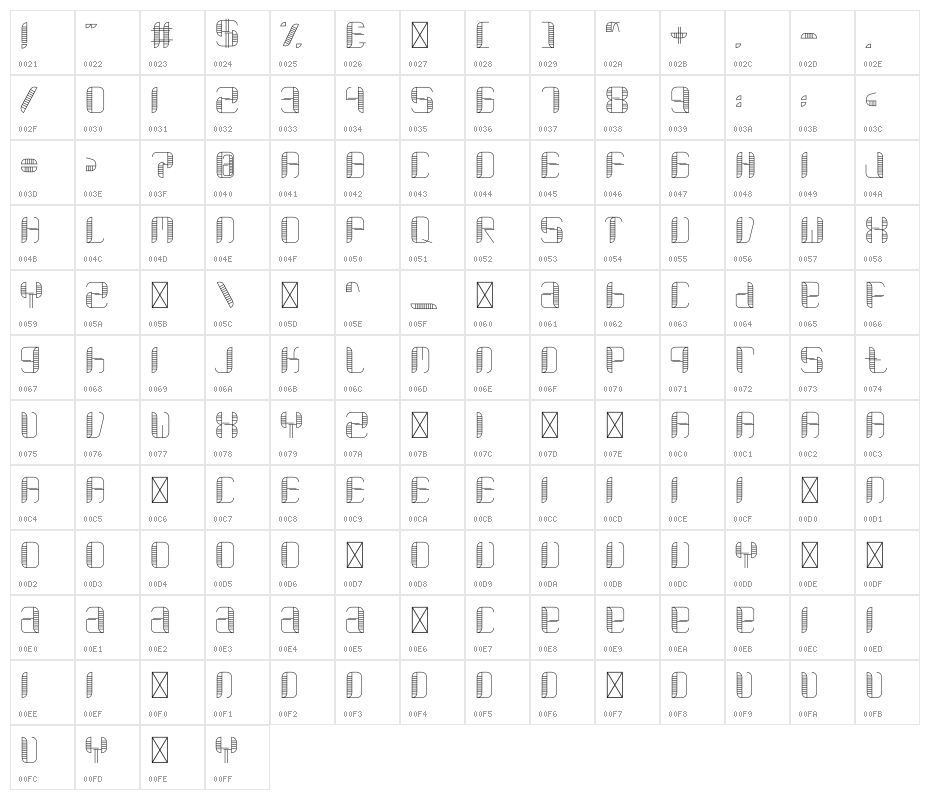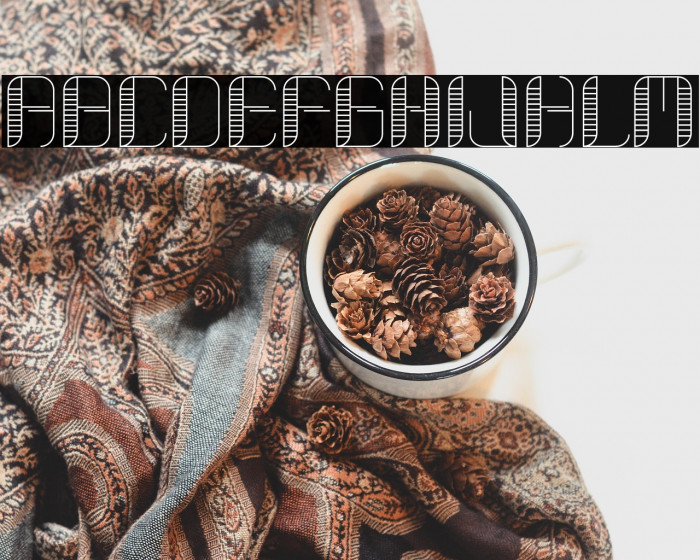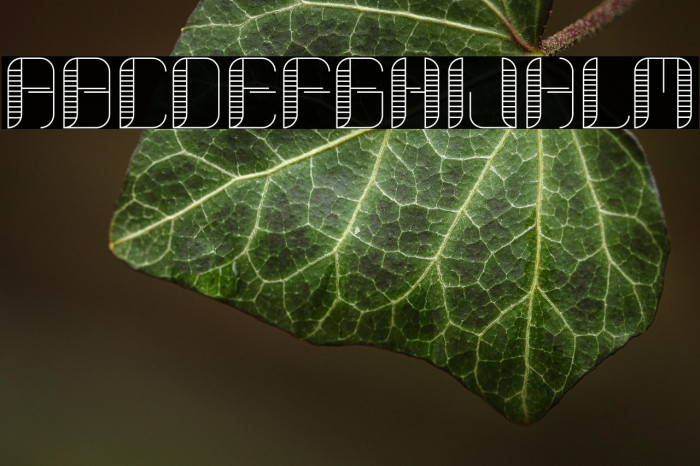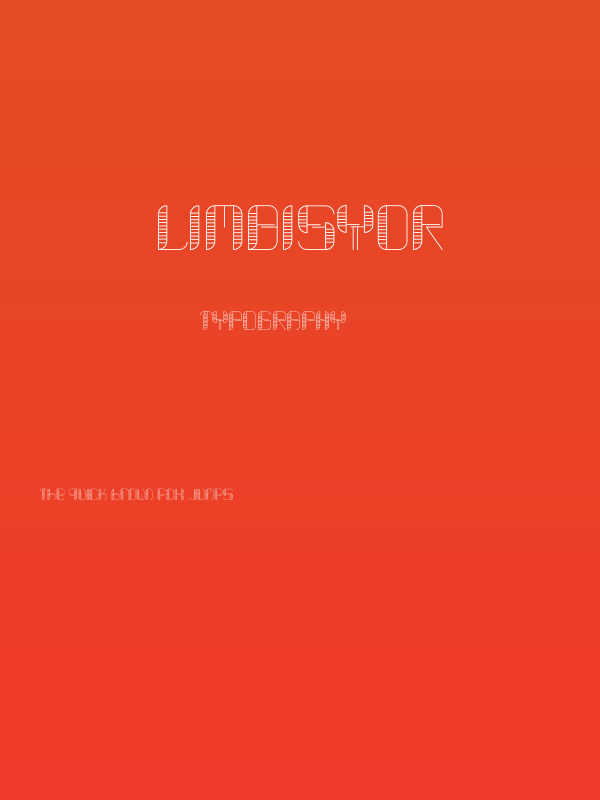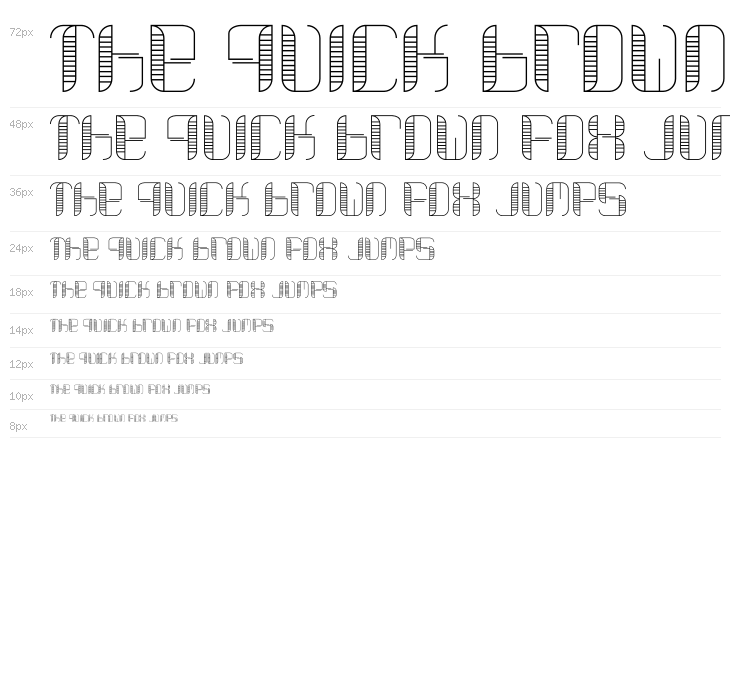
LIMBISYOR Font
LIMBISYOR Description
This font features a unique and modern design with a geometric and linear style. Each character is constructed with a series of parallel lines that create a striped effect, giving it a distinct and futuristic appearance. The uppercase and lowercase letters maintain a consistent width, while the numbers and special characters follow the same design principles. The font's structure is clean and precise, making it suitable for creative and contemporary projects. Its decorative nature makes it stand out, offering a visually engaging experience.
| Use Case | Logos, Headlines, Posters |
| Proposed Projects | Ideal for branding, posters, digital art, and futuristic-themed designs. |